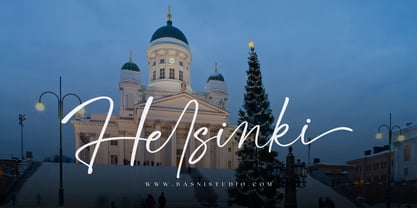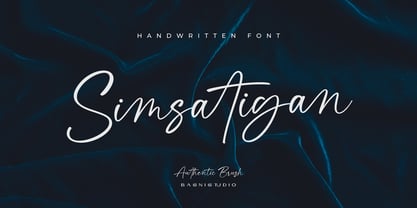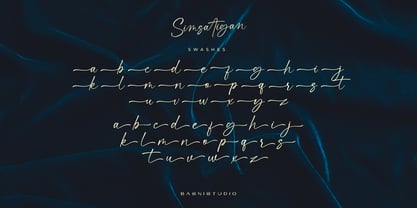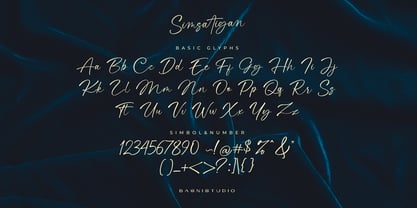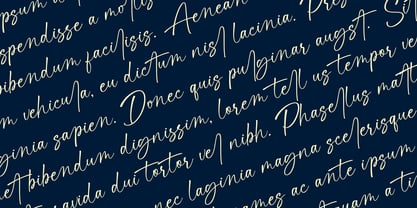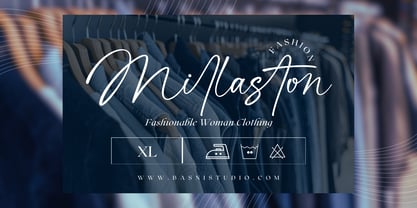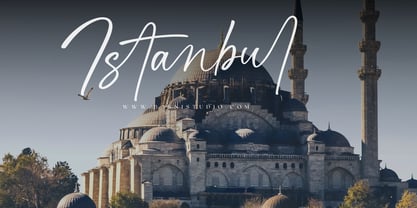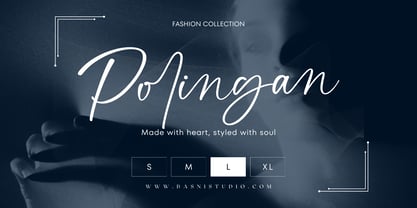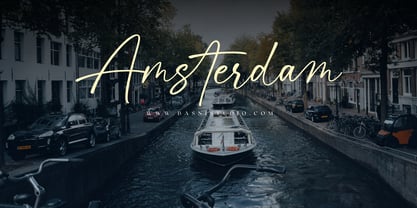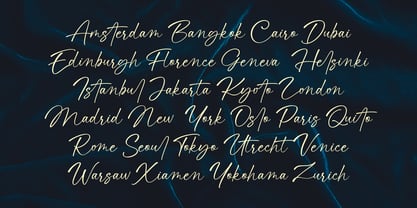
Simsatigan
von Basnistudio
Die Schriftfamilie Simsatigan wurde von Bery Arisandi entworfen und von Basnistudio veröffentlicht. Simsatigan enthält 1 Stile. Mehr über diese Familie
Simsatigan – Casual Handwritten Font Handwritting Font Created with real pen strokes for a natural look and casual touch to everything from branding and social media to invitations and packaging. Natural & Casual – Perfect for tagline, quotes, greeting cards, and more Authentic Handwritten Feel – Created with real pen strokes for a natural look Easy to Use – Works seamlessly with all major design programs Whether you’re building a powerful brand identity or crafting a standout design, Simsatigan a Handwritting Font Created with real pen strokes for a natural look gives you the creative edge you need. What’s Included: Uppercase & lowercase letters swashes & ligatures Numbers & punctuation Multilingual Support ( Support for 90 languages ) If you have any questions please don’t hesitate to contact me Thank You Very Much
Designer: Bery Arisandi
Foundry: Basnistudio